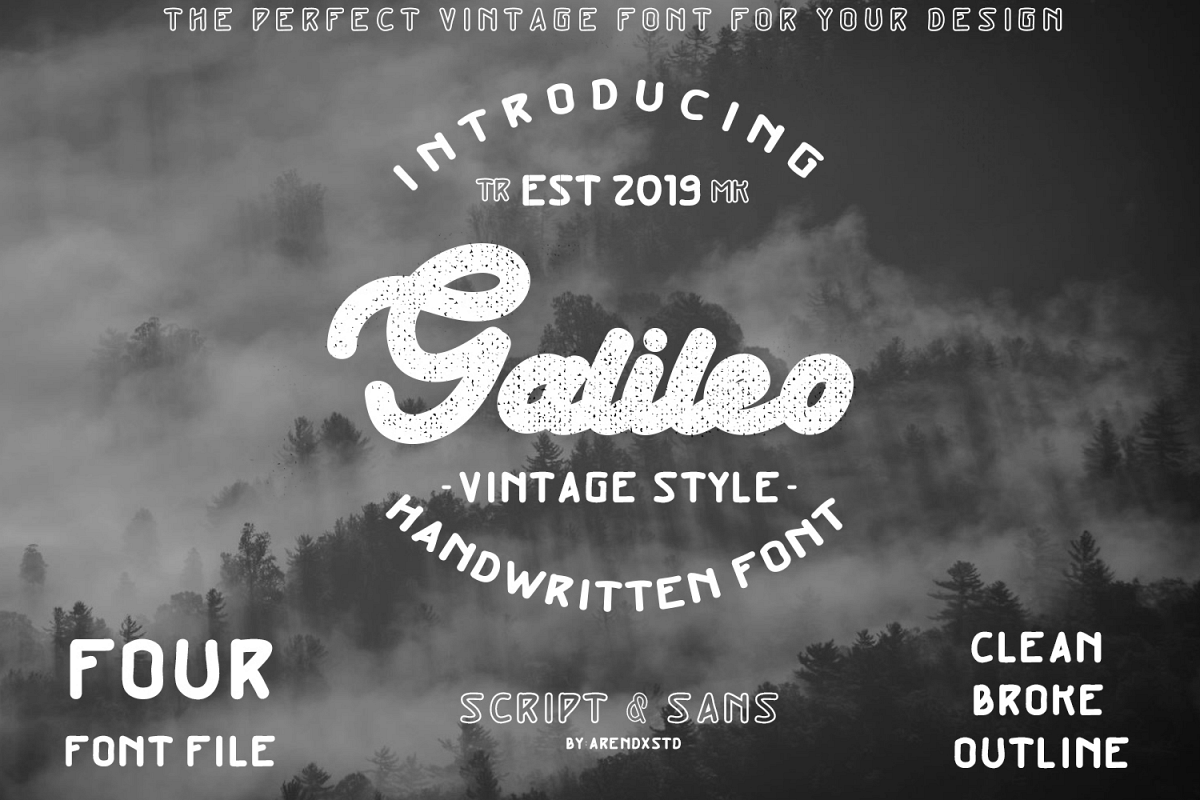
Galileo - Vintage Style - Font Duo
Vintage Galileo fonts This feature is felt and visible brushes are made. Each letter that has been hand drawn makes the font unique. After that it is scanned and put together as a font. This font matches the headlines, design of the best t-shirts, logos and posters.